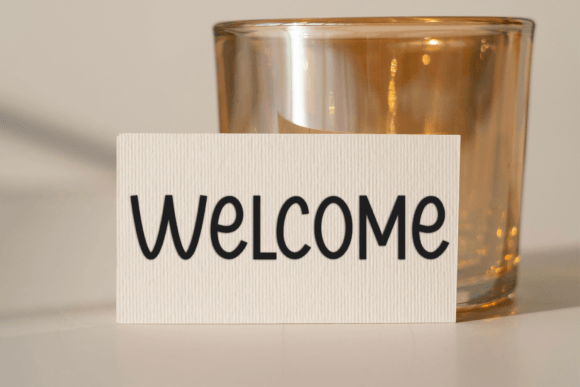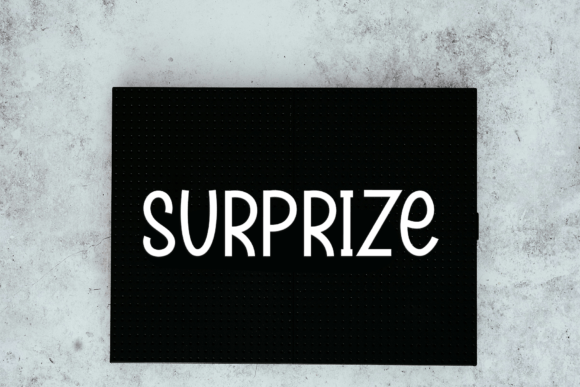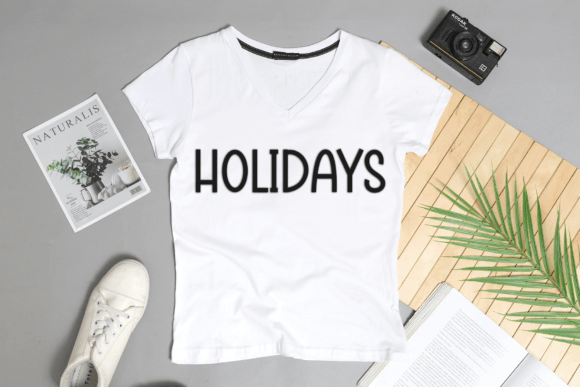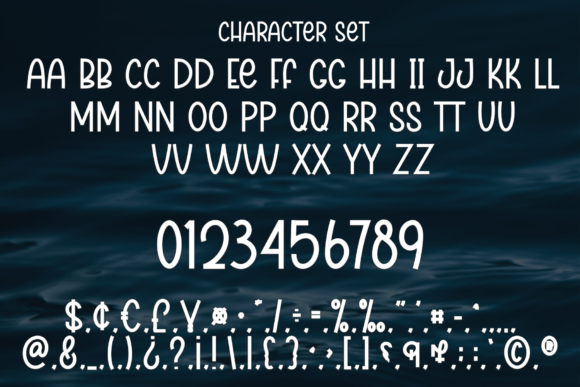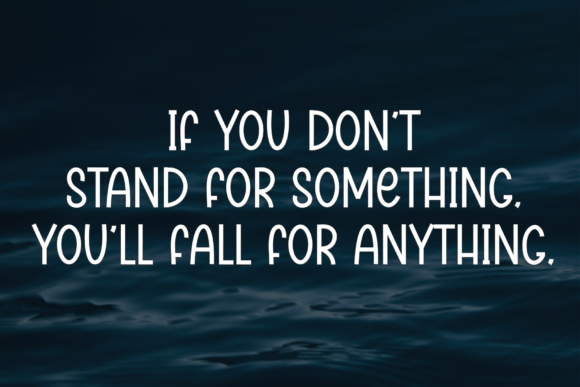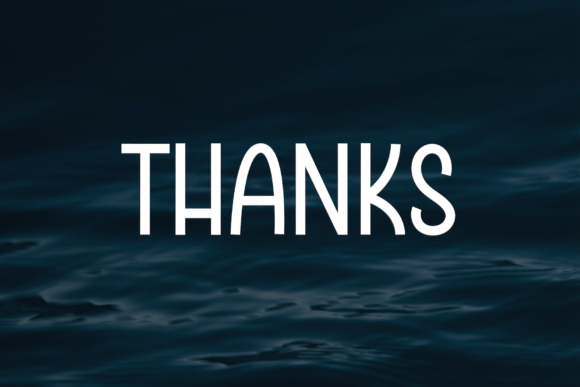
Introduction to People Beach Font
Have you ever been stuck on a creative project, staring at a blank canvas, searching for the perfect font to bring your design to life? I know I have! That’s why I’m excited to introduce you to People Beach Font, a stunning handwritten display font that’s sure to elevate your designs to the next level.
With its contemporary atmosphere and impeccable form, People Beach Font is inspired by timeless classic calligraphy, making it the perfect addition to any creative project. Whether you’re working on a branding project, creating social media graphics, or designing a website, this font is sure to add a touch of elegance and class.
What sets People Beach Font apart is its versatility and high quality, making it a valuable resource for designers. Plus, it’s available for free download, making it accessible to designers of all levels. With a transparent background, you can easily combine it with any design element, creating a cohesive and visually appealing look.
Key Features of People Beach Font
- High-quality, free download font ideal for creative projects requiring a unique touch.
- Features a transparent background, making it perfect for overlaying on images or using as a design resource.
- Supports a wide range of languages, making it a versatile design resource for international projects.
- Designed with a fun, beach-inspired aesthetic, adding a touch of personality to any creative project.
- Includes multiple font styles, allowing users to mix and match to achieve the perfect look.
Honest Review: People Beach Font
I recently had the chance to work with the People Beach Font, and I have to say it’s been a great addition to my design resources. The font is perfect for any creative project that requires a fun and laid-back vibe. It’s also available for free download, which is always a bonus.
- ✨ High-quality design: The People Beach Font has a clean and modern design that looks great on any background.
- ✨ Transparent background: This makes it easy to use with other design elements without worrying about clashing colors.
- ✨ Versatile: The font is suitable for a wide range of creative projects, from advertisements to social media posts.
- ⚠️ Limited character set: The People Beach Font only includes a limited set of characters, which may not be suitable for longer texts or formal writing.
- ⚠️ Not ideal for small text: Due to its casual design, the font may not be the best choice for small text sizes, as it can become difficult to read.
Overall, I’m really impressed with the People Beach Font. Its high-quality design and transparent background make it a great addition to any design resource library. Just be aware of its limitations and use it wisely.
Tips for Getting the Most Out of People Beach Font
Use the People Beach Font in conjunction with other design elements, such as images and graphics, to create a visually appealing design. Experiment with different font sizes, colors, and styles to get the most out of the font.
The People Beach Font is commonly used for designing beach-themed projects, such as posters, social media graphics, and websites. It’s also used for creating fun and playful designs for children’s products, such as toys and clothing.
Alternatives to People Beach Font
Pacifico is a high-quality, elegant script font perfect for creative projects that require a touch of sophistication. It’s ideal for wedding invitations, menus, and other design elements where a refined look is desired. This font is a great alternative to People Beach Font for those seeking a more polished and refined aesthetic.
Great Vibes is a modern, cursive font that works well for various design projects, including logos, social media graphics, and advertisements. Its transparent background makes it easy to use with any image or background. When compared to People Beach Font, Great Vibes has a more contemporary feel and is better suited for digital design projects.